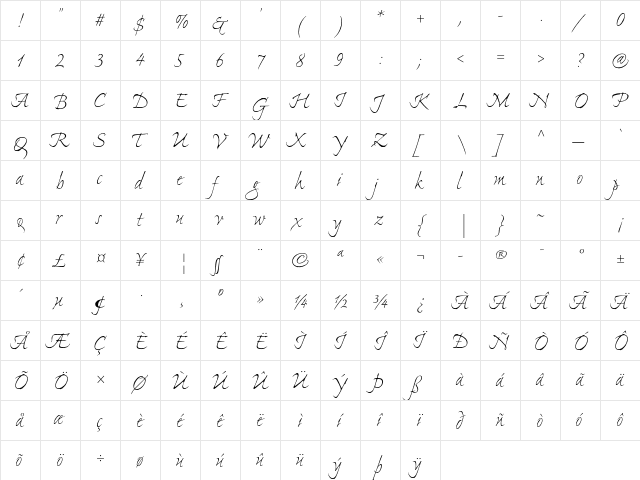
Ex Ponto Pro Light
| Designer | Jovica Veljovic |
Design Context for Ex Ponto Pro Typeface
Ex Ponto Pro is a composed and adaptable typeface that performs quietly and consistently across a wide range of design contexts. Its slender proportions lend an understated elegance to any composition.